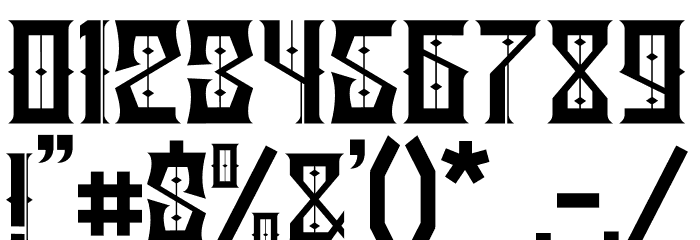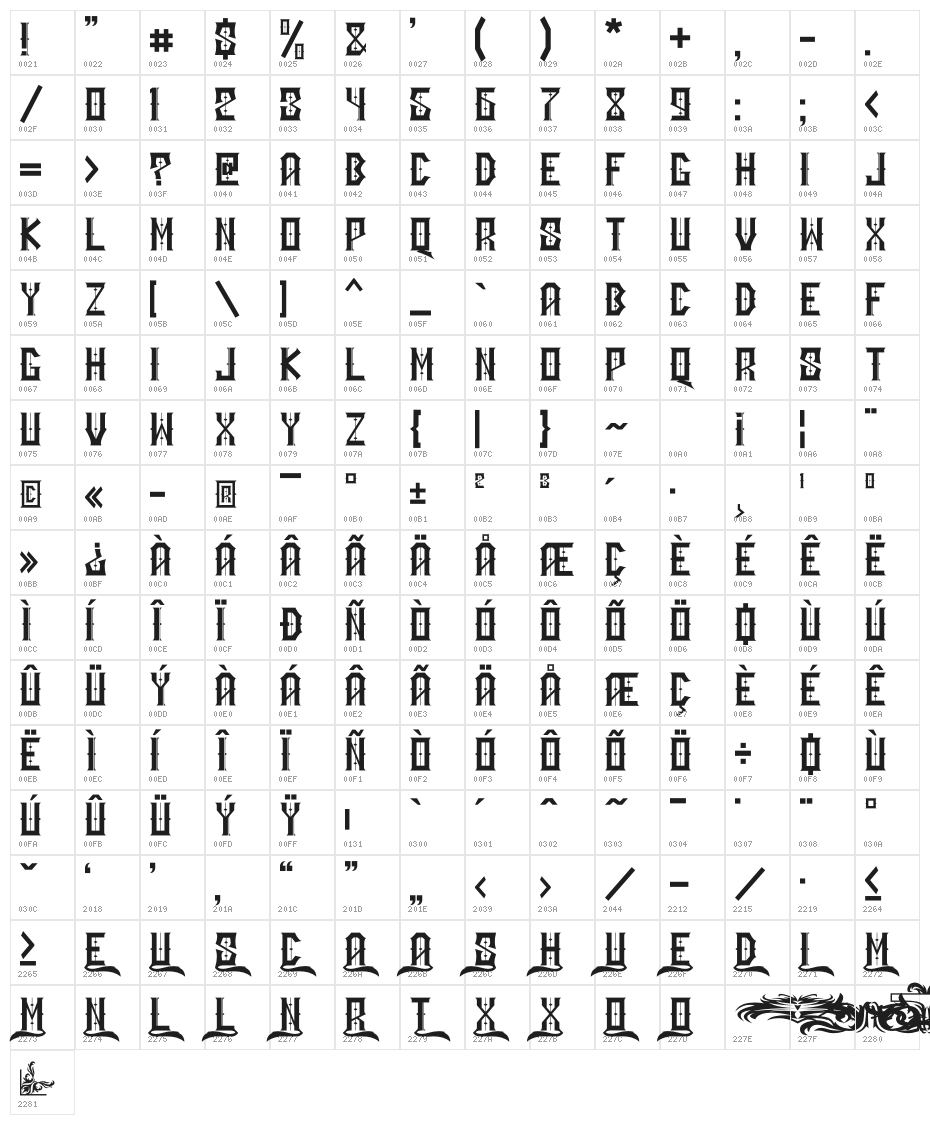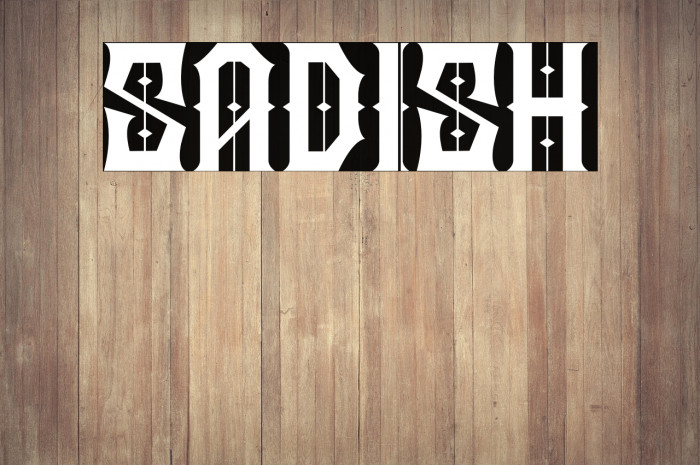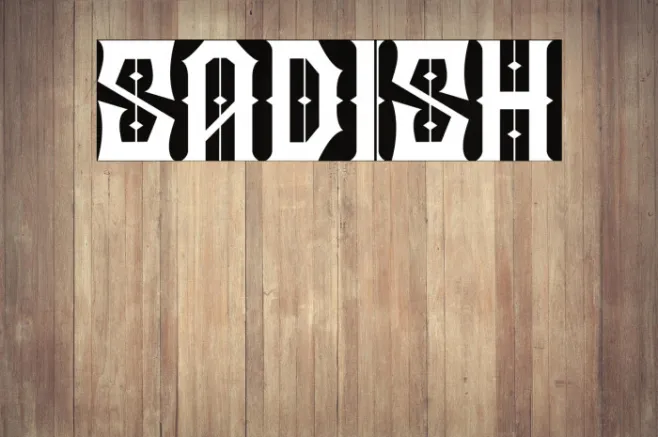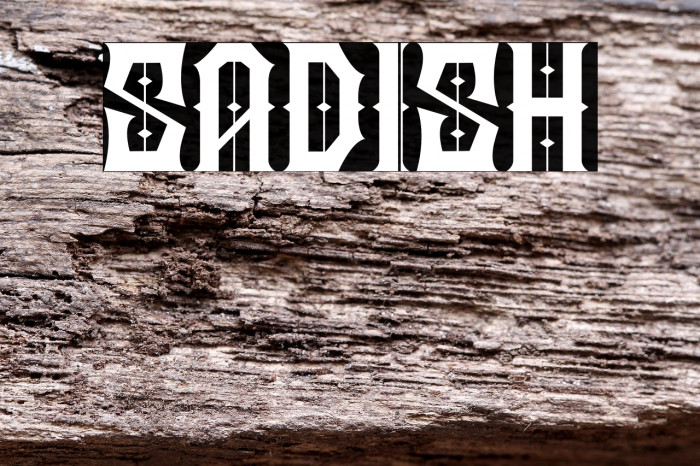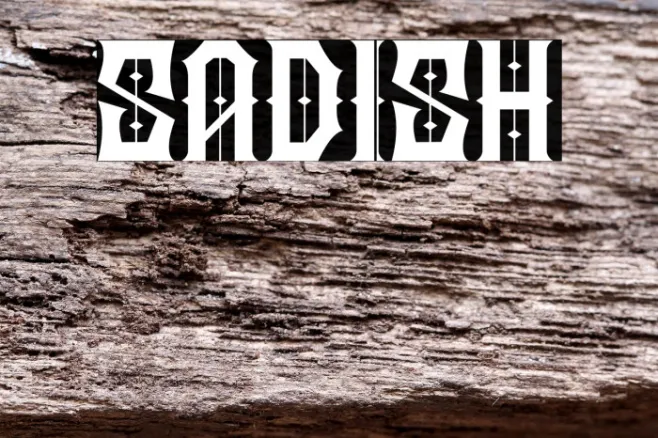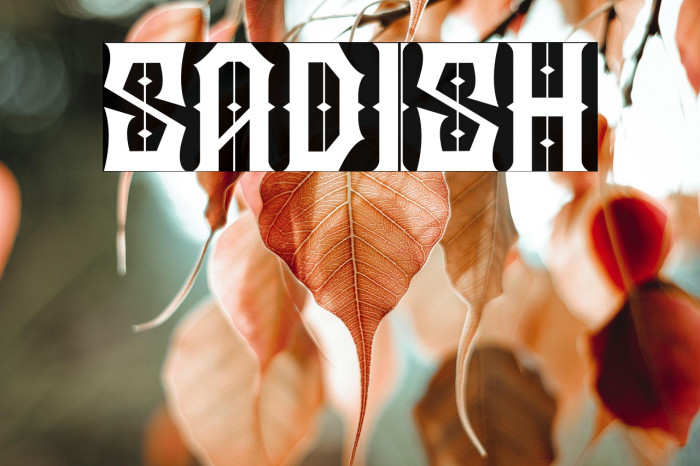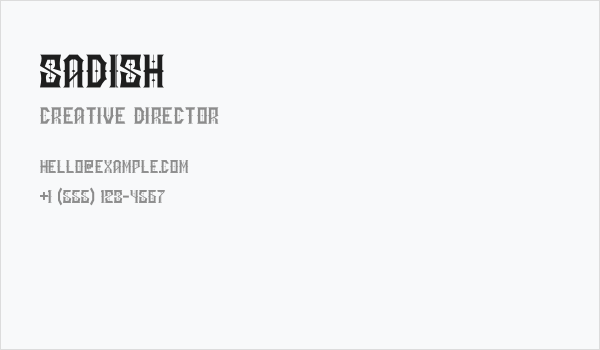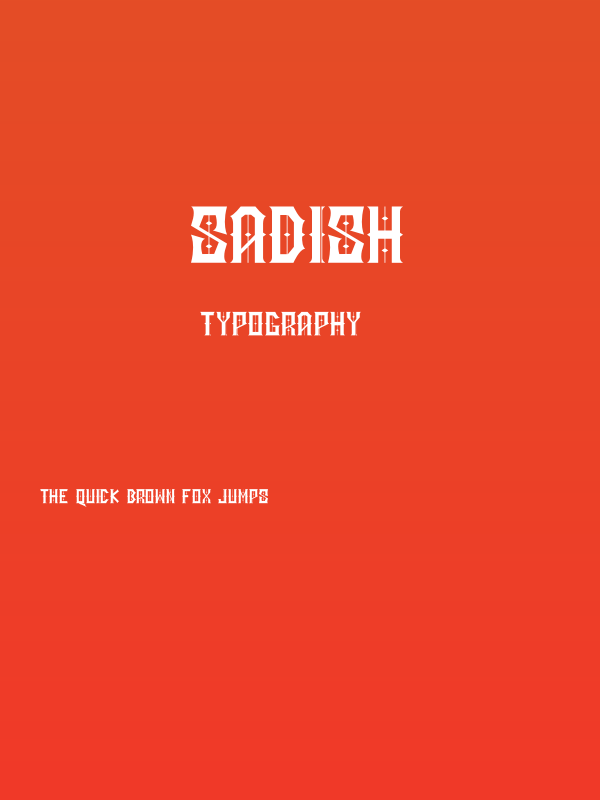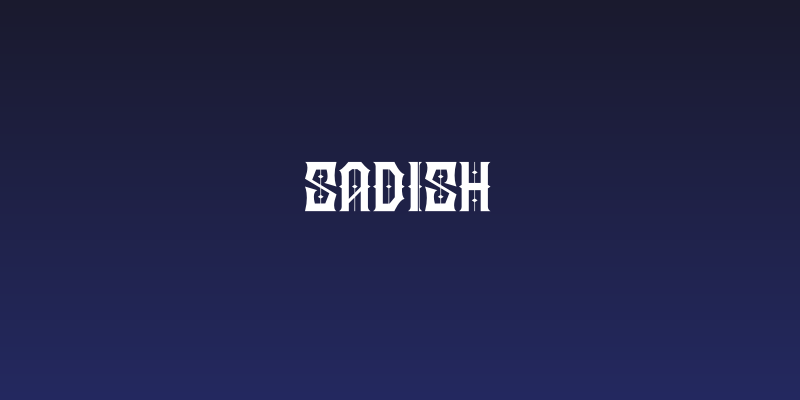
SADISH Font
SADISH Description
This font features a bold and striking design with a distinct Gothic influence. The characters are characterized by sharp, angular edges and a high level of detail, reminiscent of medieval script. The uppercase letters are particularly elaborate, with intricate serifs and decorative elements that give the font a dramatic and imposing appearance. The numbers and special characters maintain the same stylistic elements, ensuring a cohesive look across all glyphs. This font is well-suited for projects that require a strong visual impact and a sense of historical or fantasy themes.
| Proposed Projects | Ideal for use in fantasy-themed designs, historical event posters, video game titles, and any project requiring a dramatic, medieval aesthetic. |